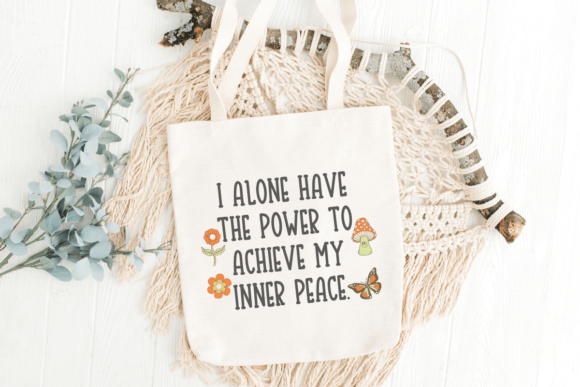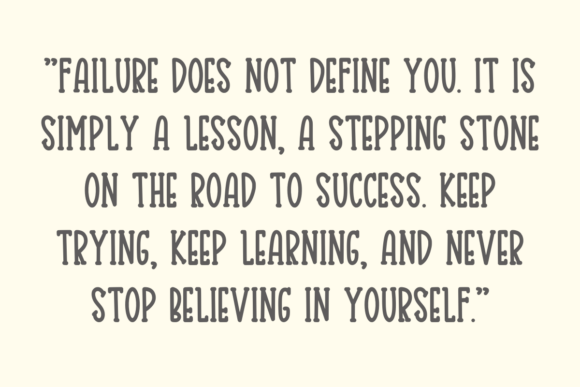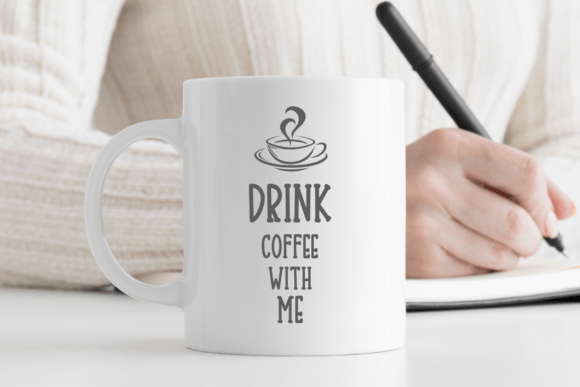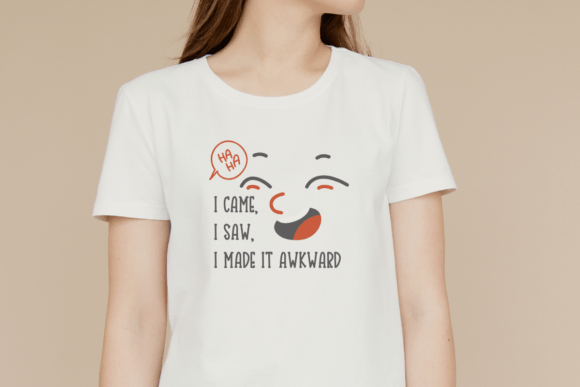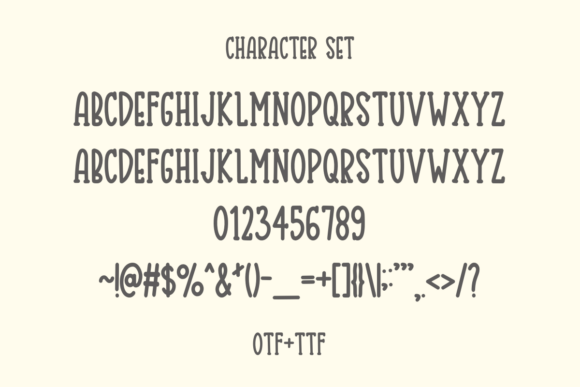
Easter Charm Font: The Perfect Addition to Your Creative Projects
Are you looking for a playful and charming font to add a touch of Easter magic to your crafts, planners, and DIY projects? Look no further than the Easter Charm Font! This delightful font is perfect for crafters, designers, and makers who want to create adorable and eye-catching projects for Easter and beyond.
What is Easter Charm Font?
Easter Charm Font is a digital font designed to bring a smile to your face. Its cute and friendly style makes it ideal for a wide range of creative projects, from crafts and planners to KDP, stickers, and greeting cards. The font’s playful and whimsical design is sure to capture the spirit of Easter and add a touch of charm to your creations.
Perfect for Crafters, Designers, and Makers
Whether you’re a crafter, designer, or maker, Easter Charm Font is the perfect addition to your creative toolkit. The font’s versatility and charm make it suitable for a variety of projects, including:
- Crafts: Use Easter Charm Font to add a personal touch to your Easter-themed crafts, such as paper crafts, DIY decorations, and more.
- Planners: Add a playful touch to your planners and journals with Easter Charm Font, perfect for creating custom layouts and designs.
- KDP: Create adorable Easter-themed books, journals, and planners with Easter Charm Font, perfect for Kindle Direct Publishing (KDP).
- Stickers: Design cute and colorful stickers with Easter Charm Font, perfect for decorating laptops, water bottles, and more.
- Greeting Cards: Create heartwarming Easter greeting cards with Easter Charm Font, perfect for sending to friends and family.
Works Great with Cricut, Sublimation, and DIY Projects
Easter Charm Font is designed to work seamlessly with popular crafting and design tools, including:
- Cricut: Use Easter Charm Font with your Cricut machine to create custom vinyl decals, iron-on designs, and more.
- Sublimation: Design stunning sublimation projects, such as mugs, tumblers, and phone cases, with Easter Charm Font.
- DIY Projects: Add a personal touch to your DIY projects, such as wood signs, canvas art, and more, with Easter Charm Font.
Why Choose Easter Charm Font?
So, why choose Easter Charm Font for your creative projects? Here are just a few reasons:
- Unique and Playful Design: Easter Charm Font features a unique and playful design that’s sure to stand out from the crowd.
- Easy to Read: The font is easy to read, making it perfect for creating projects that require clear and legible text.
- Versatile: Easter Charm Font is versatile and can be used for a wide range of creative projects, from crafts and planners to KDP and more.
- High-Quality: The font is high-quality and designed to produce crisp and clear results, even at small sizes.
Get Creative with Easter Charm Font
Ready to get creative with Easter Charm Font? Here are some ideas to get you started:
- Create a custom Easter planner or journal with Easter Charm Font.
- Design adorable Easter-themed stickers and washi tape with Easter Charm Font.
- Make a personalized Easter greeting card with Easter Charm Font.
- Use Easter Charm Font to create custom sublimation projects, such as mugs and tumblers.